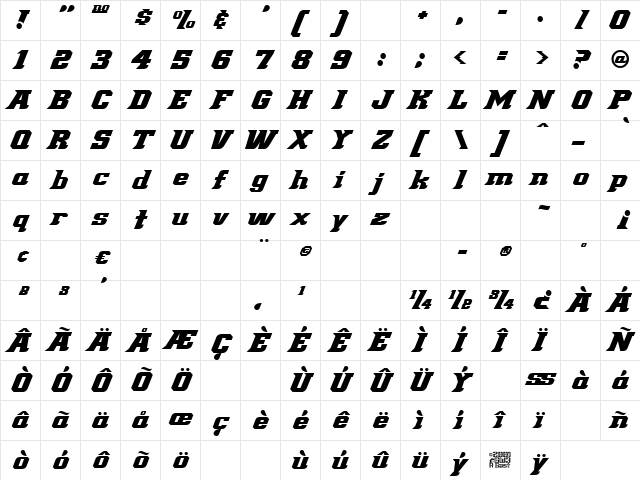
Demonized Regular Free Font
Demonized Regular
Foundry: GreyWolf WebWorks
Designer: Rich Gast
Demonized Family
Demonized Regular
Design Context for Demonized
Demonized is a composed and adaptable typeface that performs quietly and consistently across a wide range of design contexts.